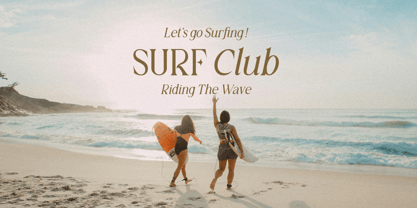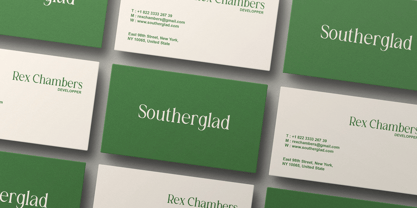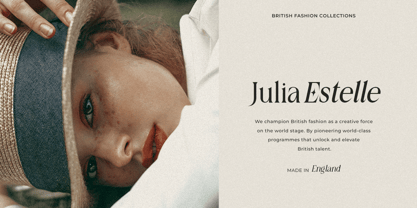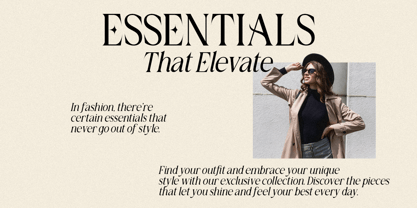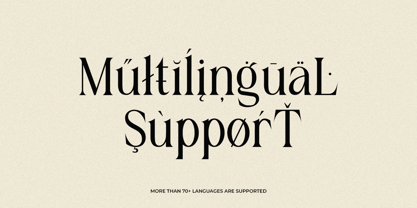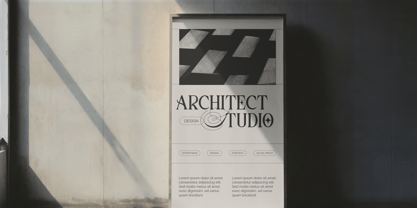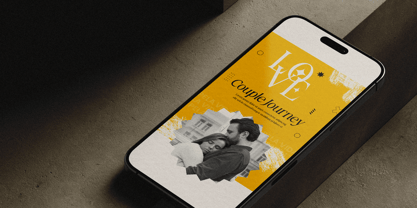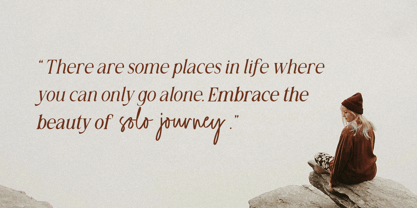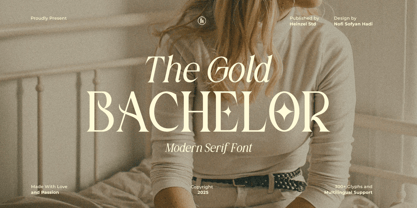
Gold Bachelor
by Heinzel Std
The Gold Bachelor Font Family was designed by Nofi Sofyan Hadi and published by Heinzel Std. Gold Bachelor contains 4 styles and family package options. More about this family
Introducing The Gold Bachelor – a modern serif font that brings timeless sophistication to your designs. This elegant typeface features clean, refined regular glyphs and a graceful italic version, perfect for creating stylish headlines, branding projects, editorials, invitations, and luxury logos. With its balanced contrast and smooth curves, The Gold Bachelor delivers both classic charm and contemporary flair. It includes 300+ glyphs with multilingual support, ensuring versatility across a wide range of design needs. Whether for fashion magazines, wedding stationery, or upscale branding, this serif font adds a touch of golden elegance to every project.
Designers: Nofi Sofyan Hadi
Foundry: Heinzel Std
Gold Bachelor